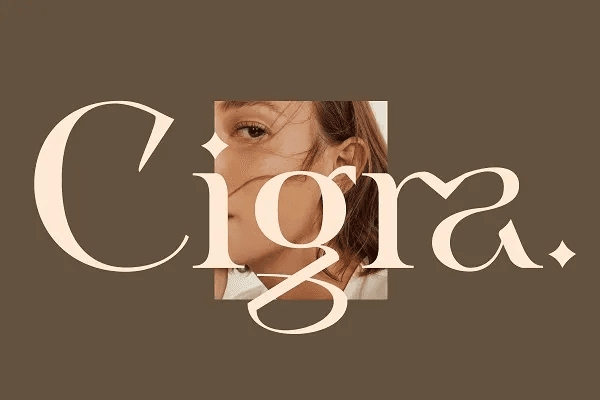
Cigra – Elegant Display Font
Cigra – Elegant Display Font is a standout display font that is an ode to fashion typography in present day. It’s elaborate curves and unique shapes make it perfect for headings, logos & wedding invitations. Cigra is all class so if you want a stylish font that will draw the attention to your design, then this is it!